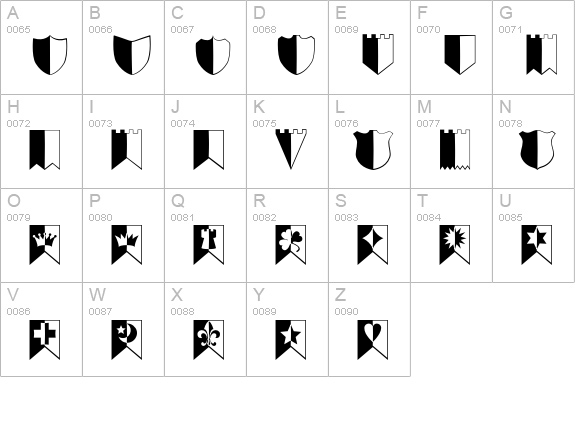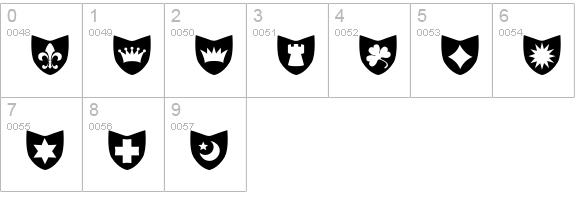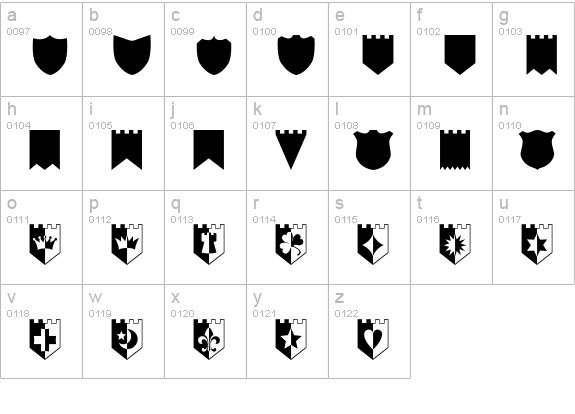
AltemusShields Font Details
AltemusShields is a striking and elegant font that exudes a sense of sophistication and uniqueness. Its intricate details and ornate design make it perfect for projects that require a touch of luxury and style. The elaborate shield motifs incorporated into each letter add a regal and majestic feel to any text, making it stand out from the crowd. What's even better is that AltemusShields is completely free to download at FontsMarket.com. This means you can easily enhance your designs and make them truly special without having to worry about any costs. Whether you're working on invitations, branding materials, or any other creative project, AltemusShields is sure to make a lasting impression. Download it today and add a touch of elegance to your work!